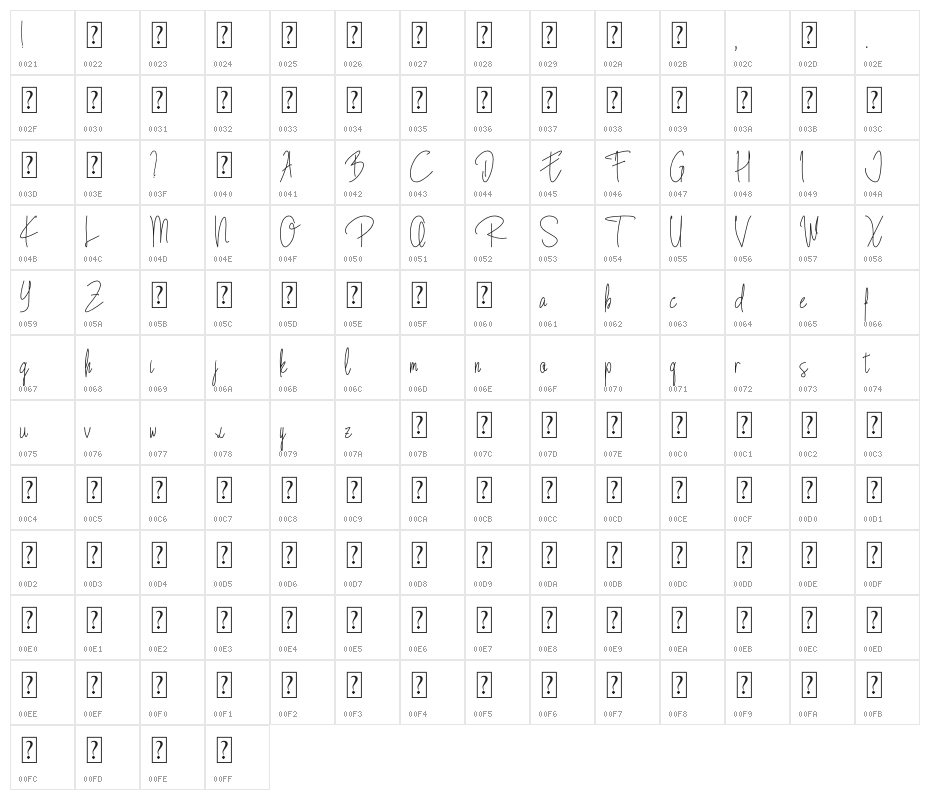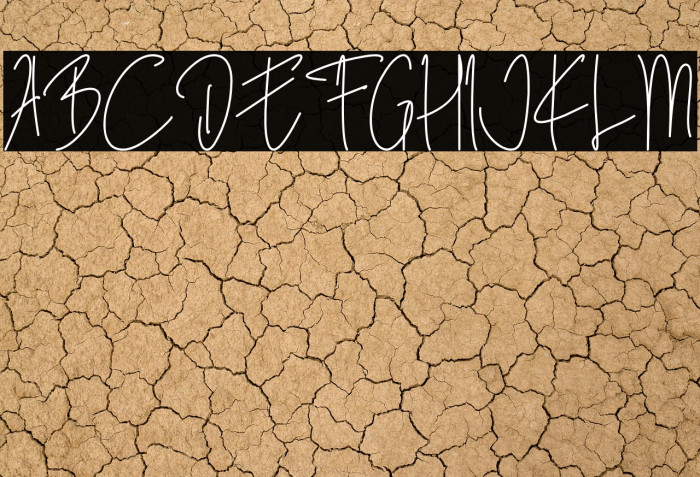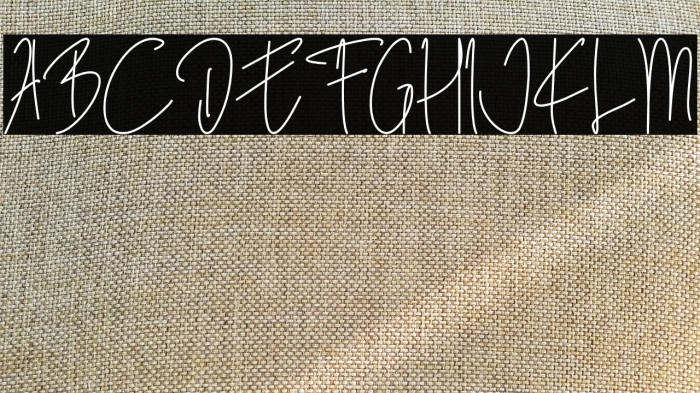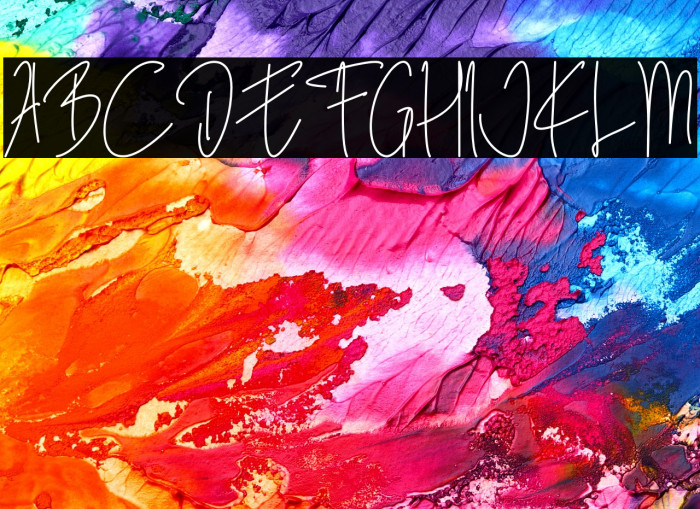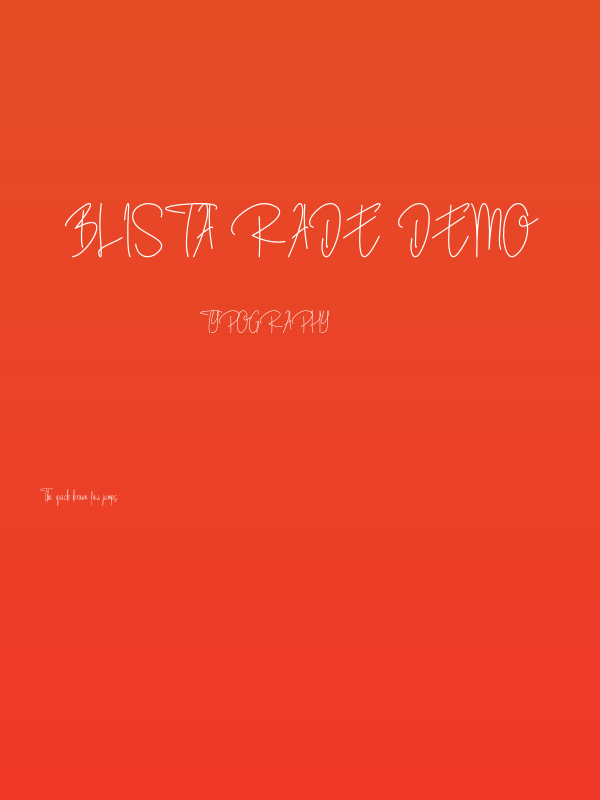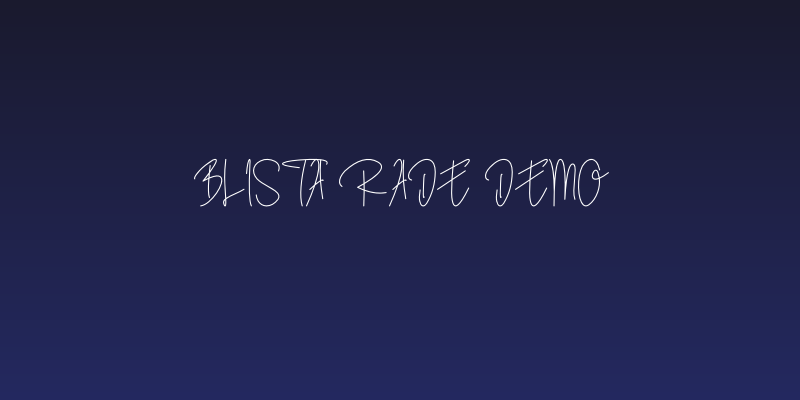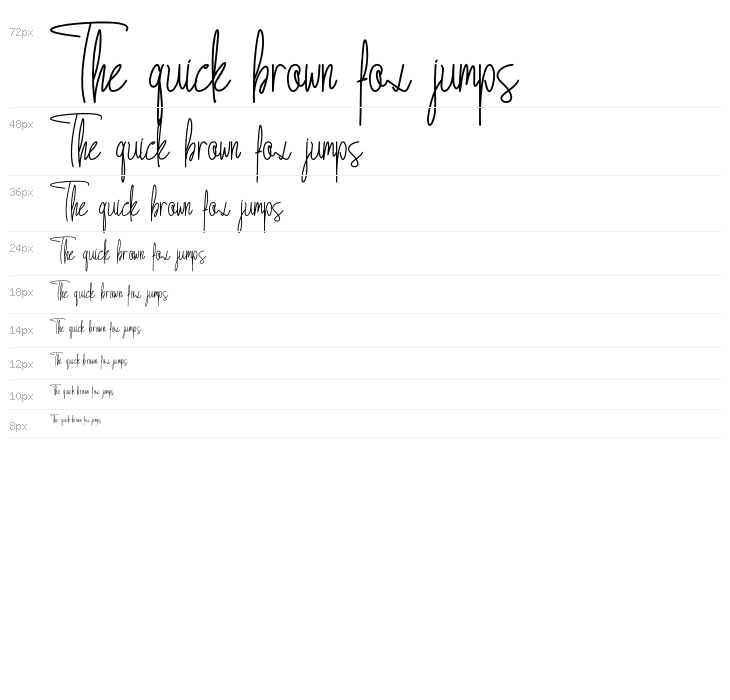
Blista Rade Demo Font
Blista Rade Demo Description
This font features a playful and whimsical handwritten style, characterized by its flowing, cursive-like strokes. The uppercase letters are tall and slightly slanted, giving a sense of movement and dynamism. The lowercase letters maintain a consistent style, with loops and curves that add to the font's charm. The overall appearance is casual yet artistic, making it suitable for creative projects. The font lacks traditional serifs, emphasizing its modern and informal nature. It is ideal for designs that require a personal touch, such as invitations, greeting cards, or artistic branding.
| Use Case | Logos, Headlines, Artistic designs |
| Proposed Projects | Ideal for invitations, greeting cards, artistic branding, and creative projects. |